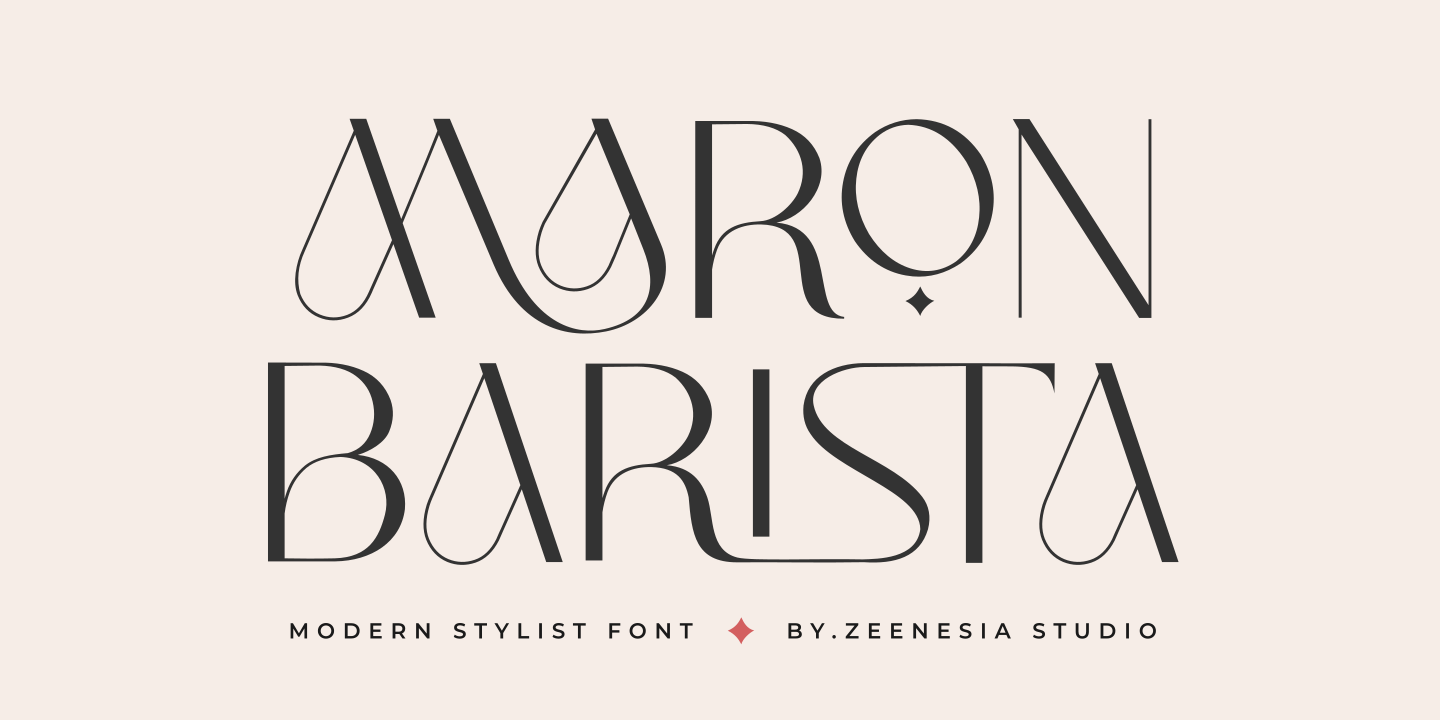
Maron Barista Font is perfect for specialty coffee shop branding, artisanal café signage, espresso bar menus, coffee roastery packaging, barista training materials, coffee bean labels, cozy coffeehouse décor, café bistro marketing, coffee equipment branding, and aromatic projects that celebrate the rich culture and craftsmanship of specialty coffee with warm café sophistication and artisanal excellence.
What makes Maron Barista Font so exciting is its masterful capture of coffee culture warmth through rich, inviting letterforms that embody the craftsmanship and passion of expert baristas. This typeface radiates the essence of specialty coffee and café culture, featuring smooth curves and welcoming proportions that suggest steamed milk and roasted beans while maintaining excellent readability for contemporary coffee shop applications that require both authenticity and professional polish.
Maron Barista Font family includes multiple café variations: Regular, Bold, Light, Roasted, Smooth, Rich, Artisan, and Espresso versions. Each style maintains the font's inherent coffee culture character while offering different levels of warmth and café appeal, enabling designers to create authentic coffeehouse aesthetics that resonate with coffee enthusiasts and café customers seeking genuine artisanal coffee experiences and community atmosphere.
The aromatic appeal of Maron Barista Font Free Download makes it exceptionally valuable for specialty coffee industries and café businesses promoting artisanal quality. This font successfully communicates coffee expertise and café warmth, making it perfect for coffee shops and roasteries that want to attract discerning customers who appreciate craft coffee culture and community gathering spaces. Its inviting character works beautifully across both digital café platforms and printed coffee materials, while its distinctive coffee-inspired design creates immediate connection with audiences who value specialty coffee craftsmanship and authentic café experiences.